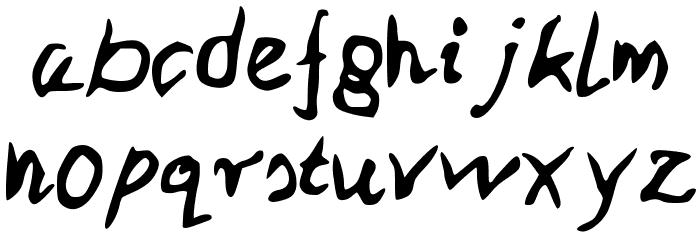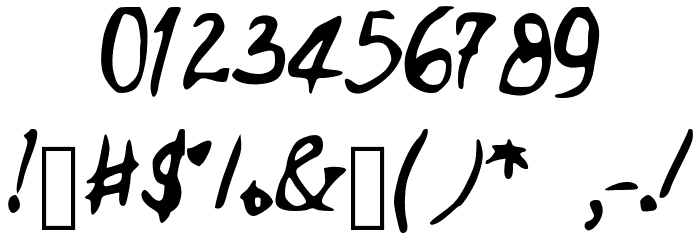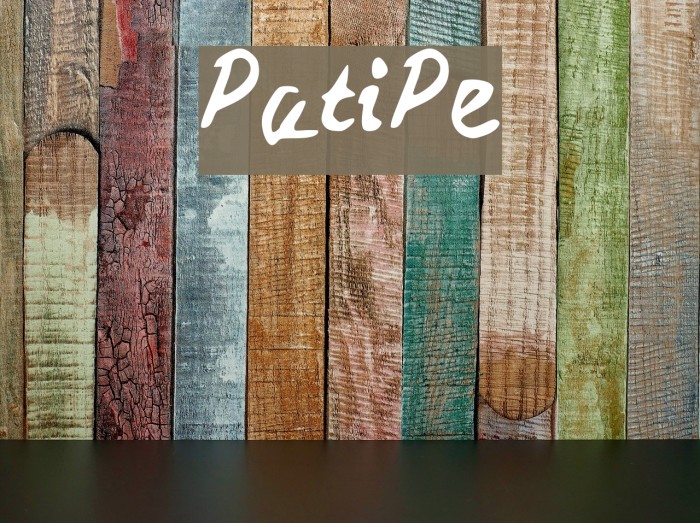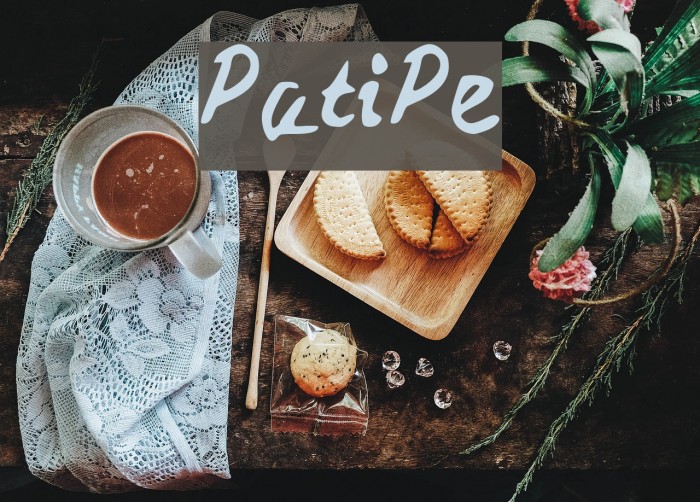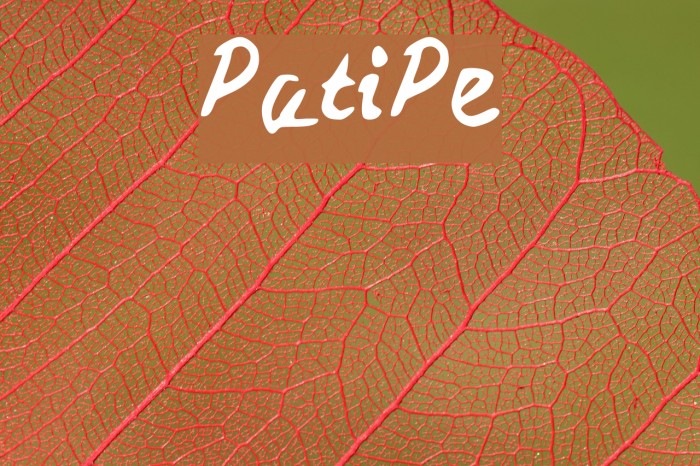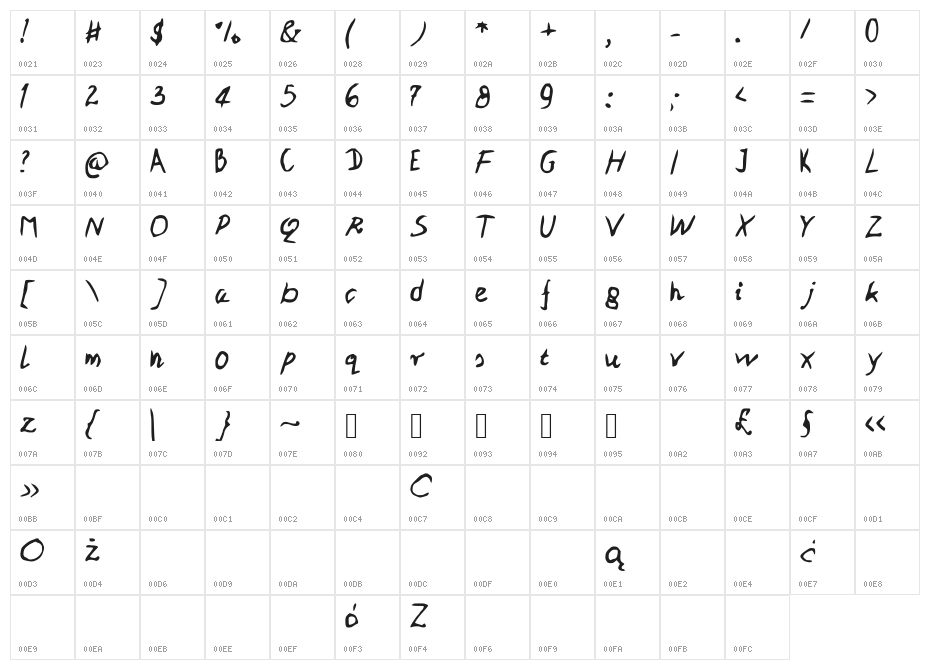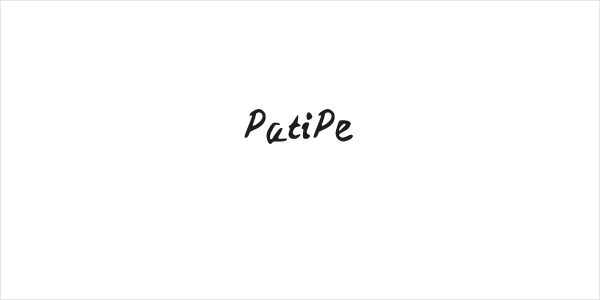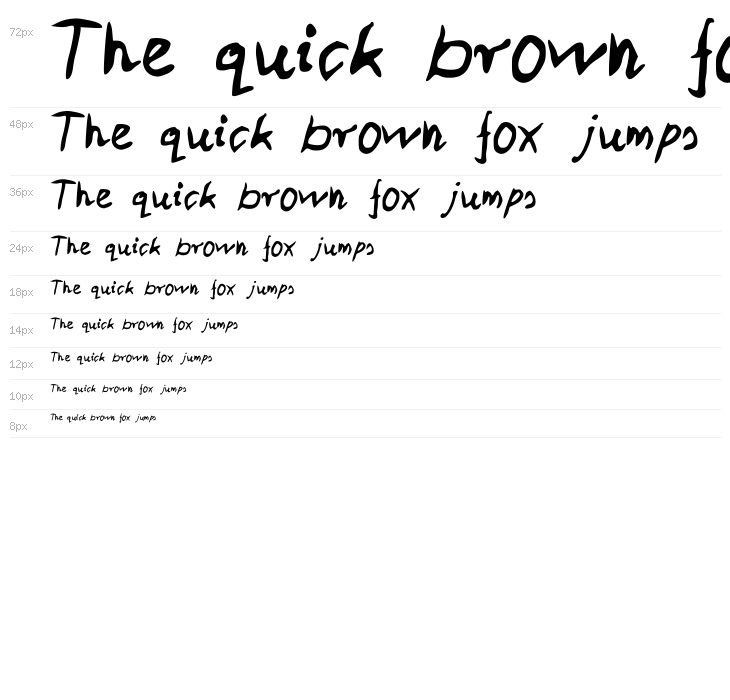
PatiPe Font
This font exhibits a playful and dynamic handwritten style, characterized by its irregular and organic letterforms. The strokes are bold and slightly uneven, giving it a casual and informal appearance. The uppercase letters are tall and slightly slanted, while the lowercase letters maintain a consistent flow with a touch of whimsy. Numbers and special characters follow the same lively style, making the font suitable for creative and artistic projects. The overall impression is one of spontaneity and expressiveness, ideal for designs that aim to convey a personal touch.
A playful, dynamic handwritten font with bold, irregular strokes.
- Proposed Projects: Ideal for greeting cards, posters, children's books, and creative branding.
- Overall Style: Casual, Expressive
- Use Case: Headlines, Creative projects, Informal designs